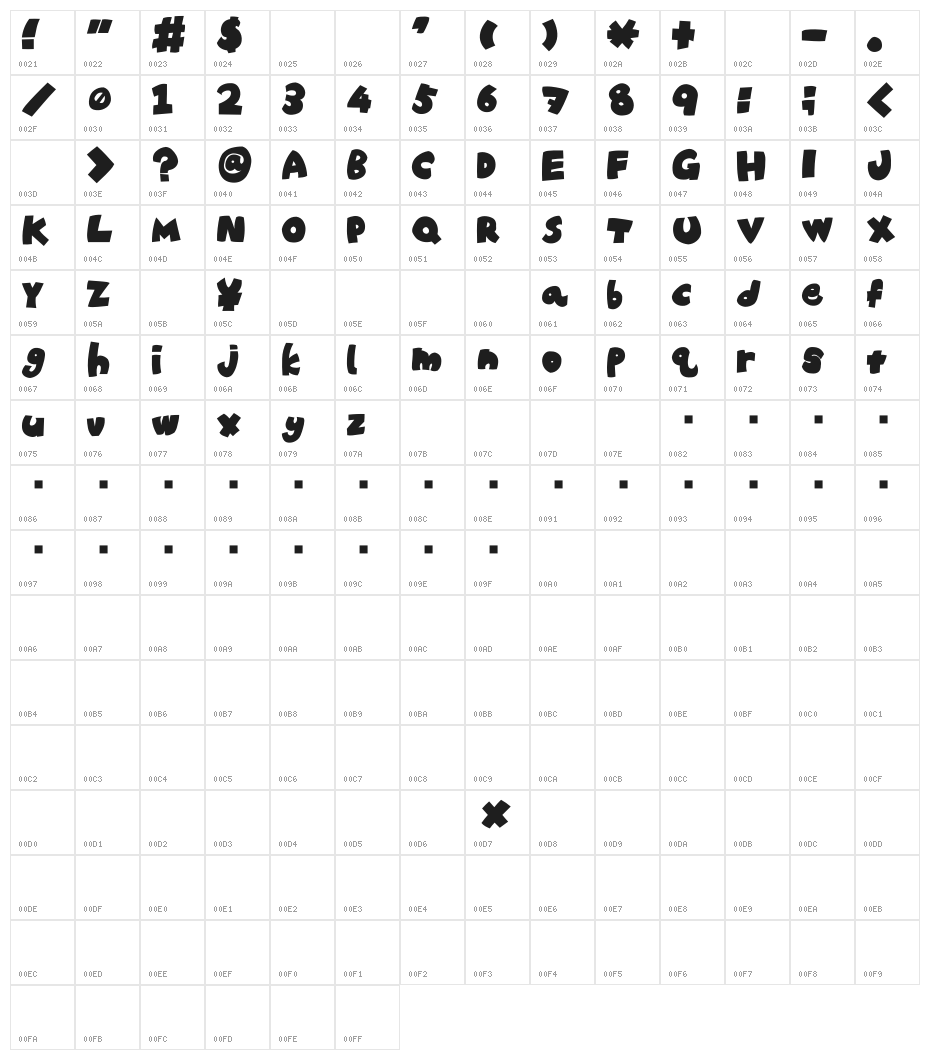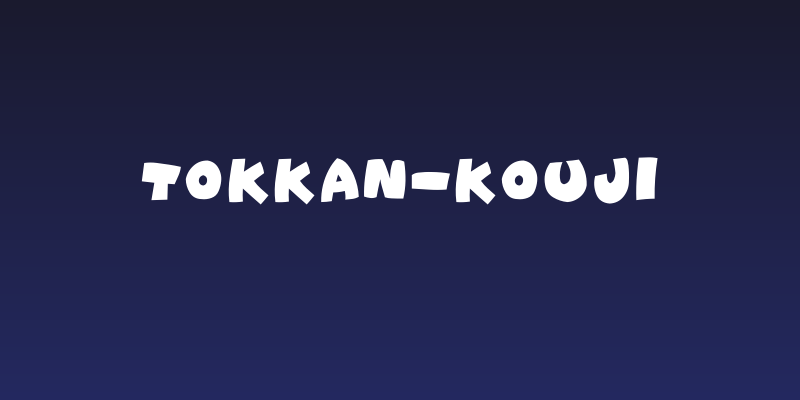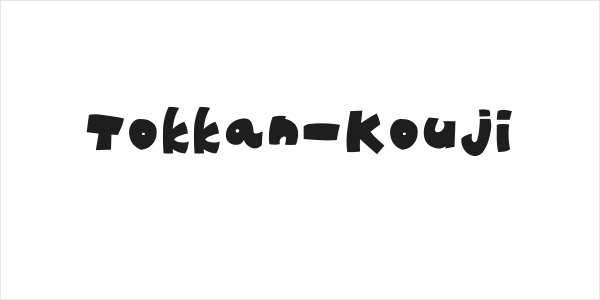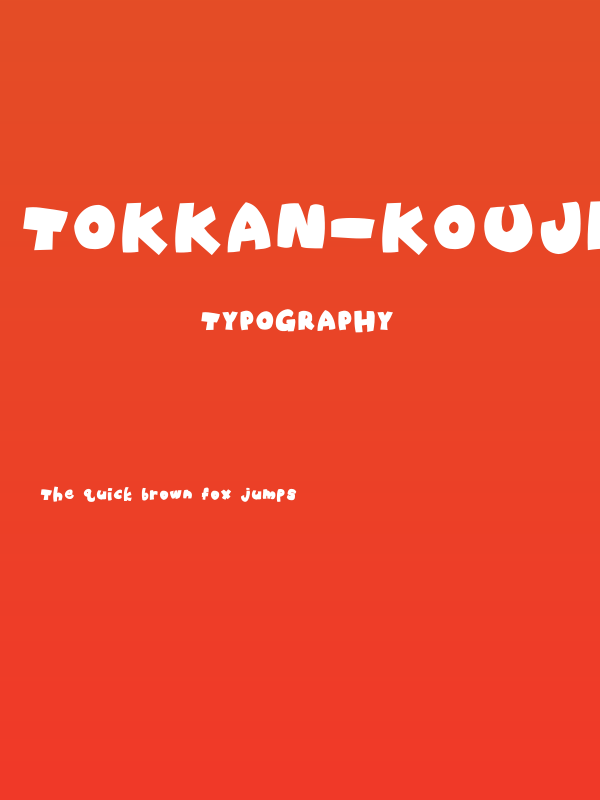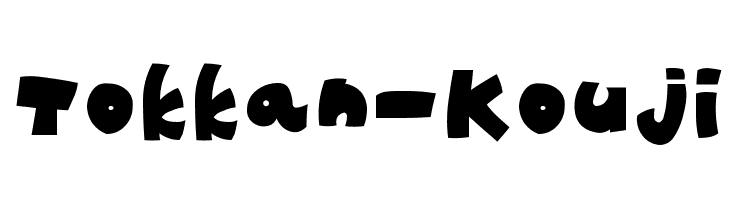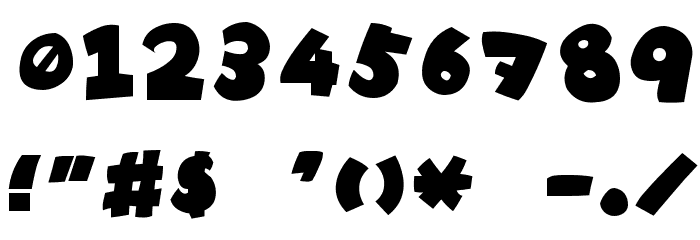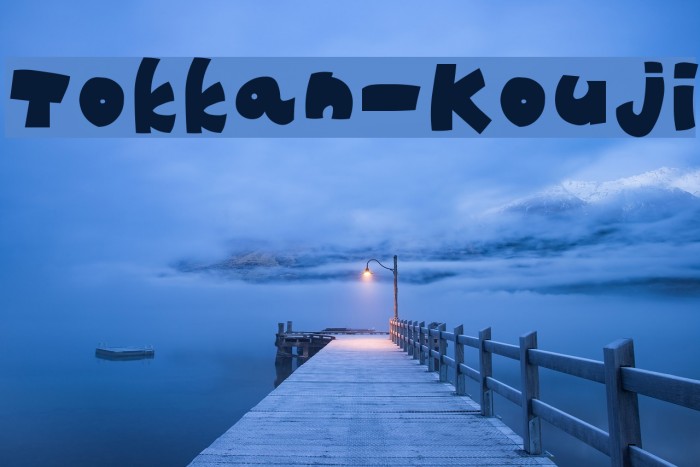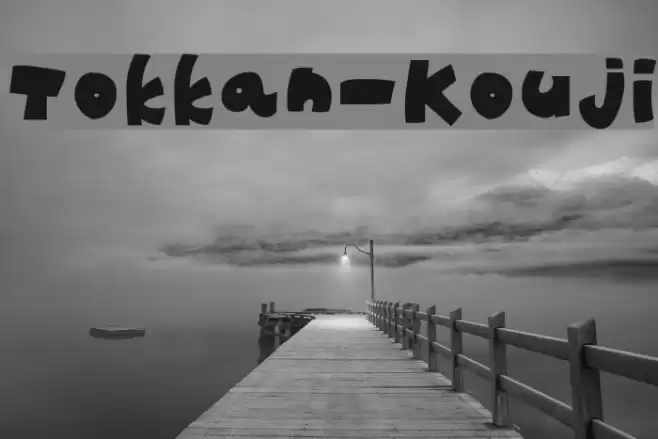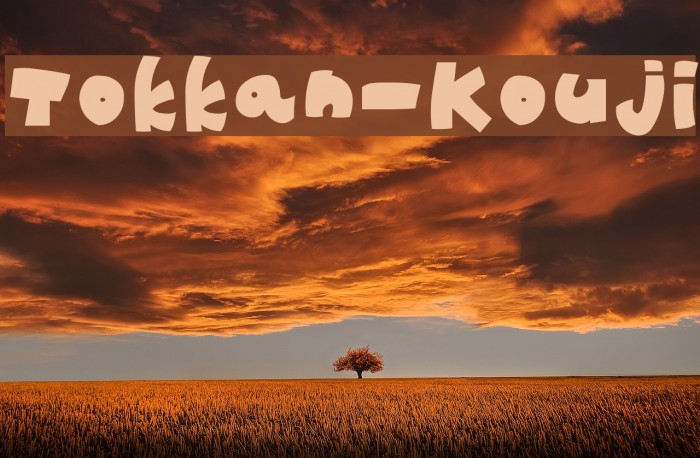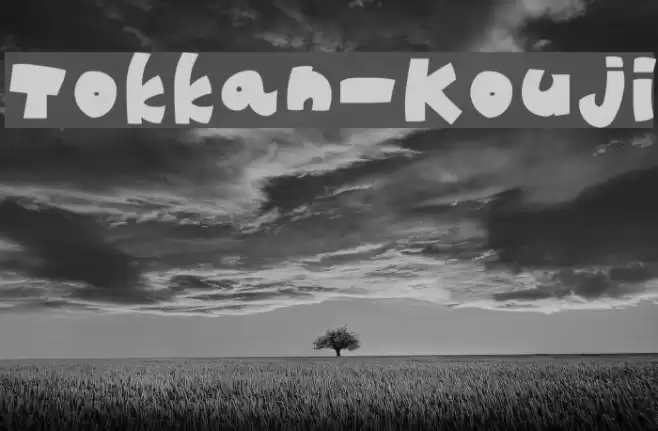
Tokkan-Kouji Font
Tokkan-Kouji Description
This playful and bold font features a unique, whimsical design with exaggerated curves and irregular shapes. Each character has a distinct, hand-drawn appearance, giving it a lively and energetic feel. The letters are thick and rounded, with varying stroke widths that add to the font's dynamic nature. The overall style is informal and fun, making it ideal for creative projects that require a touch of personality and flair. The numbers and special characters maintain the same playful aesthetic, ensuring consistency across all text elements.
| Overall Style | Playful, Whimsical |
| Proposed Projects | Ideal for children's books, playful branding, party invitations, and creative posters. |